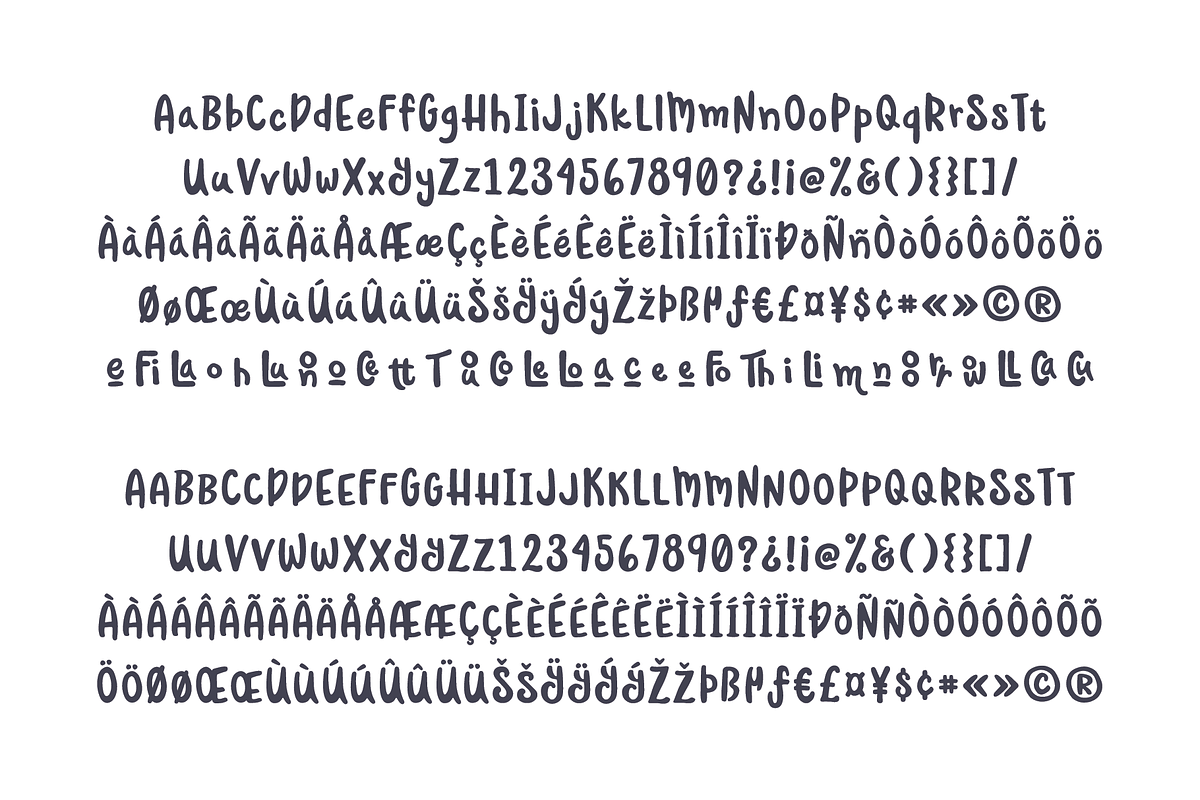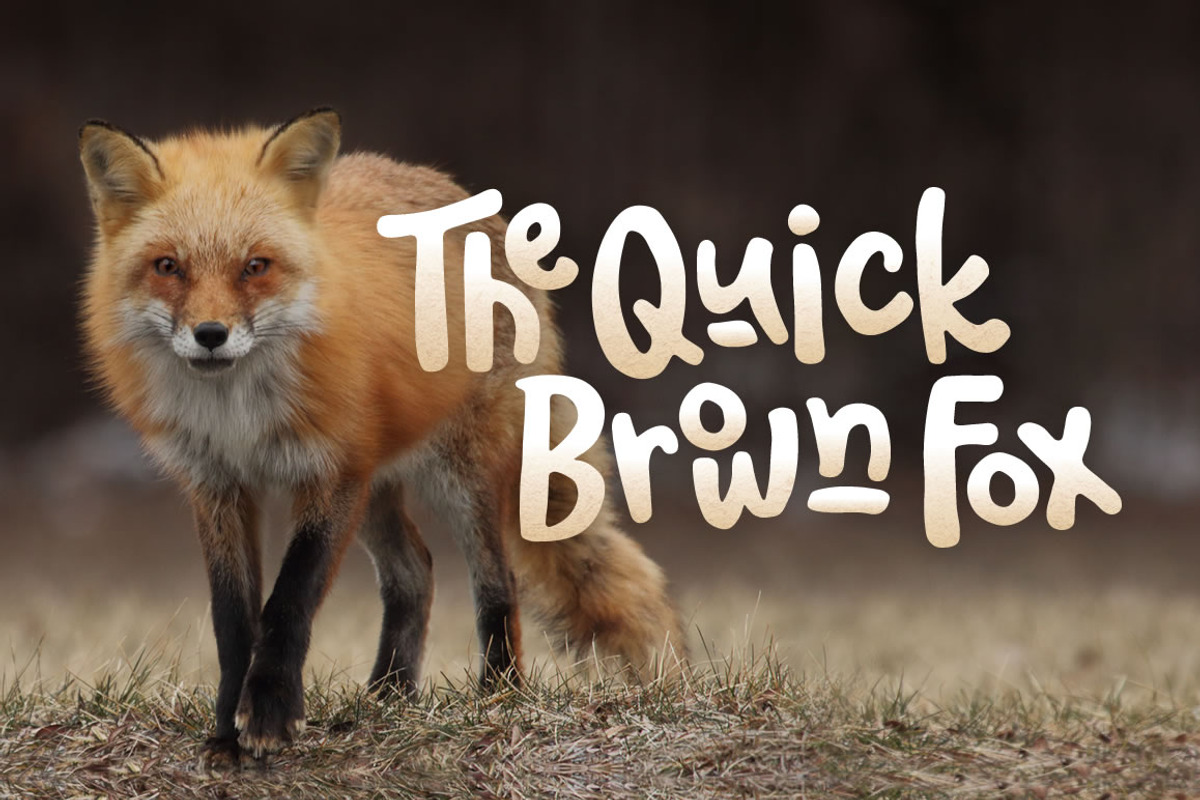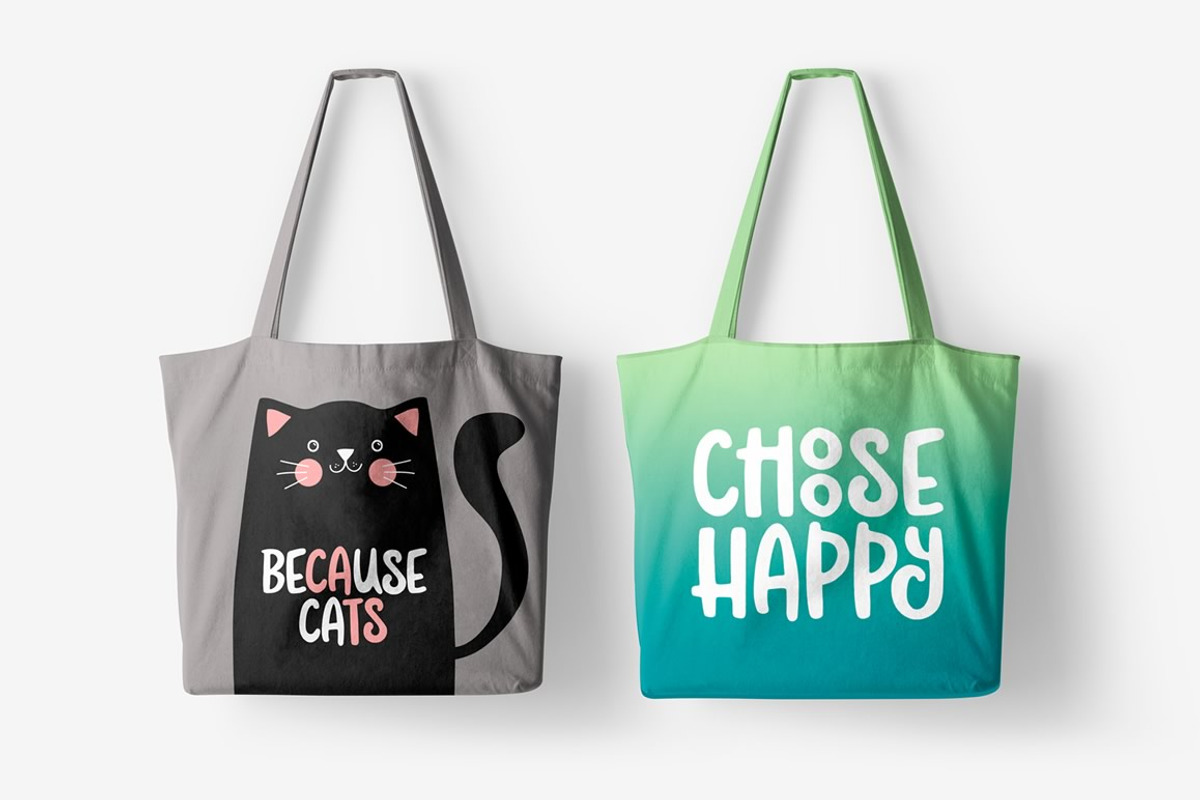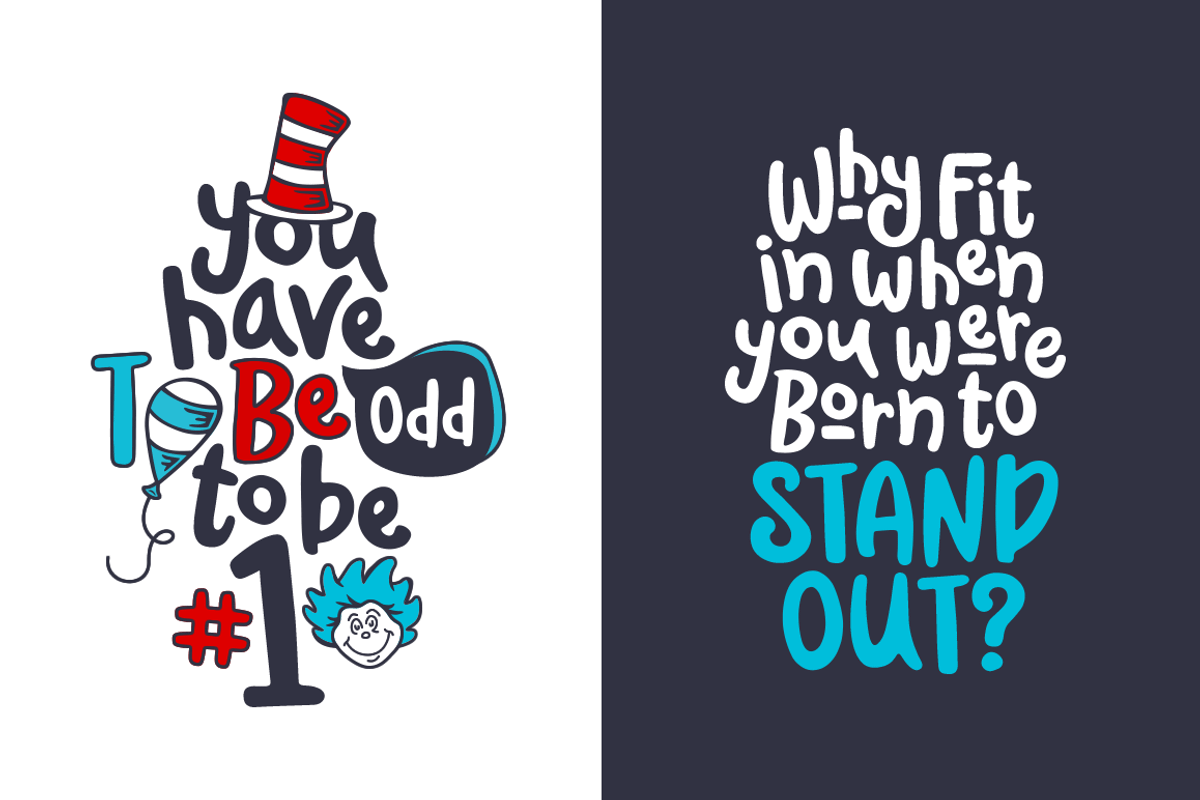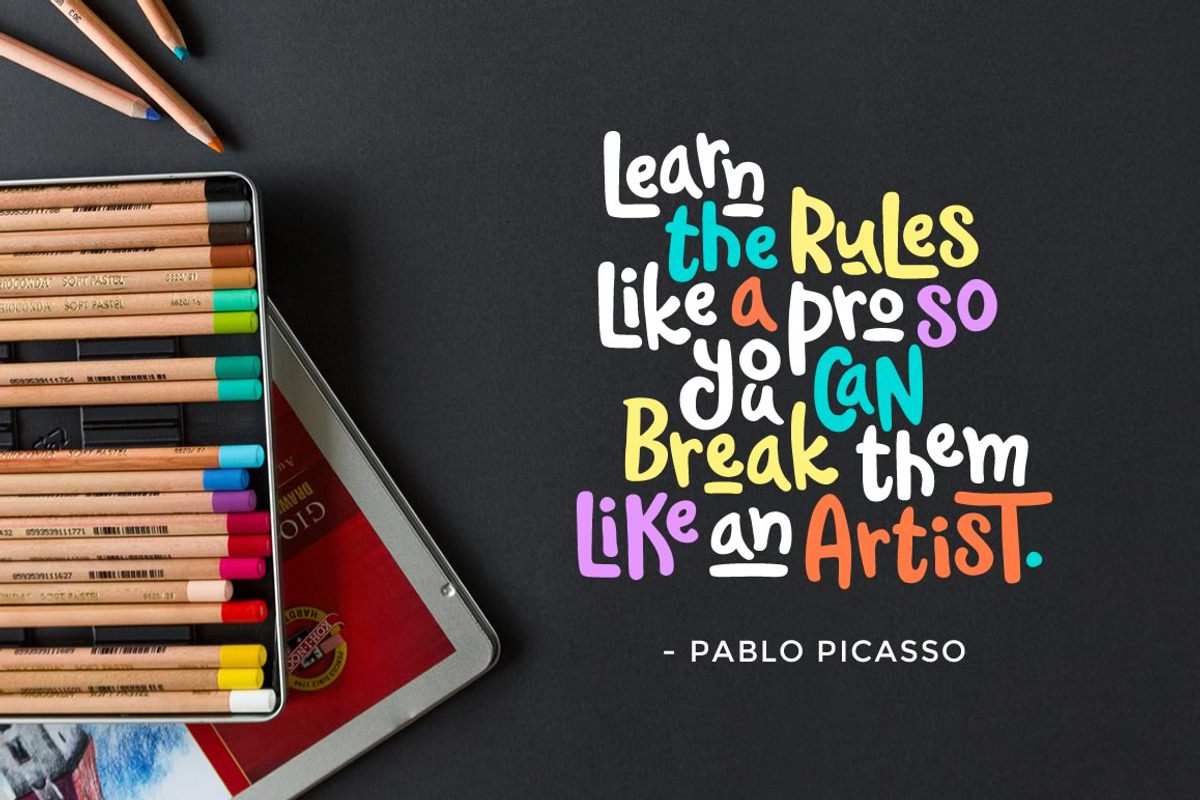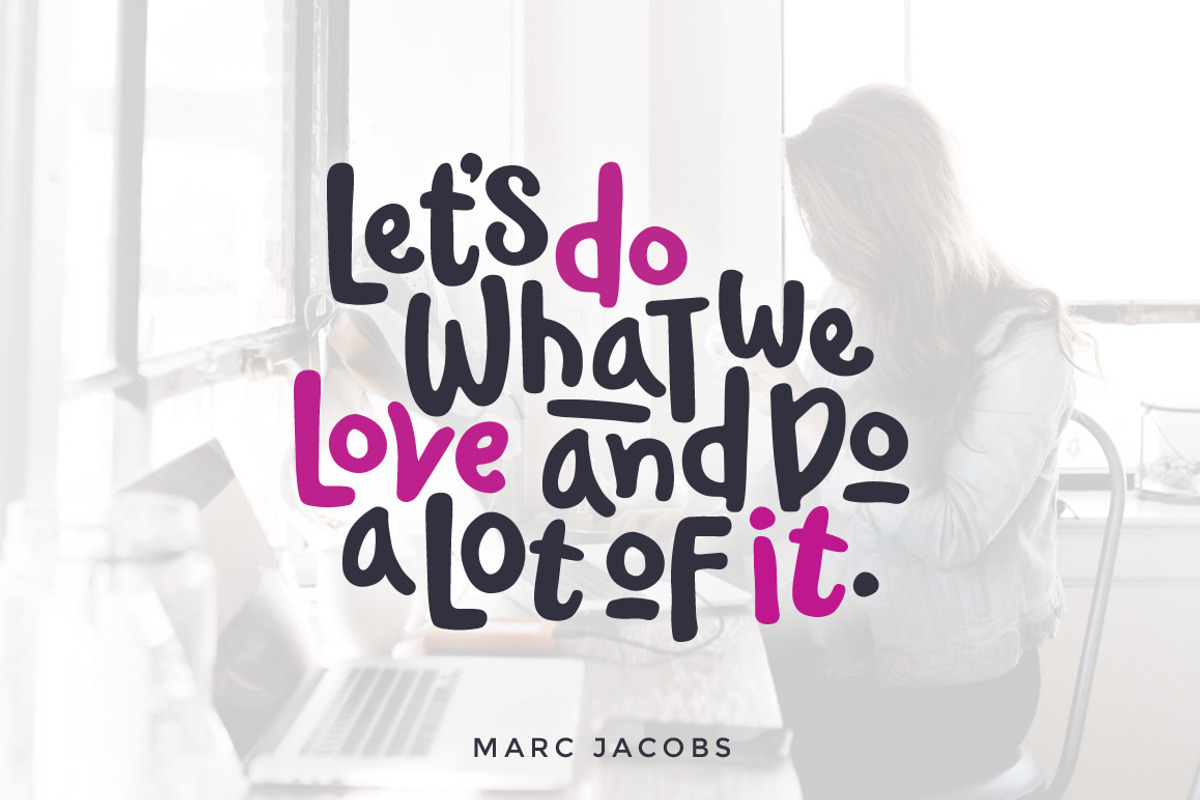
Waliroo Font
Waliroo Font by Denise Chandler is a font selected for branding, posters, packaging, typography.
- These characters are just waiting to be tilted, flipped, switched, scaled, and even (gasp) stretched!
- Included is a set of regular, small caps, and alternate characters to play around with.
Why Waliroo Font is worth a look
Waliroo Font by Denise Chandler fits naturally into Branding, posters, packaging, typography.